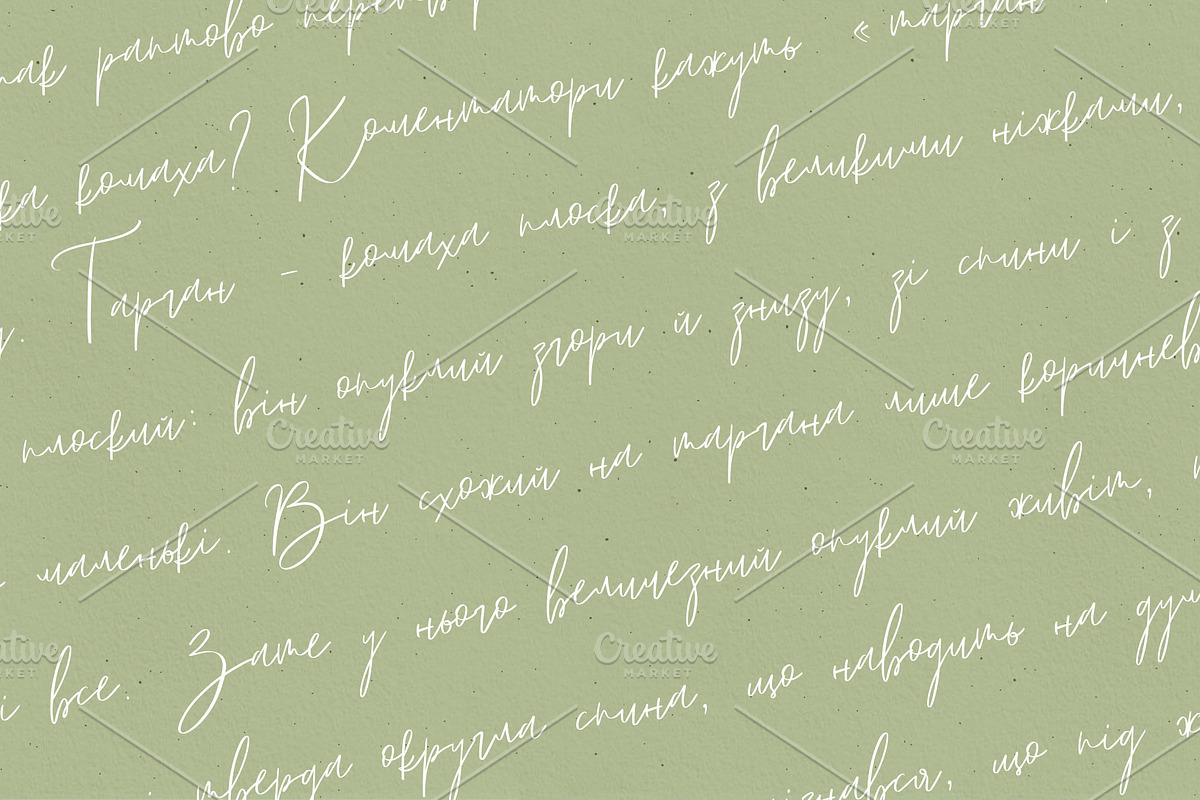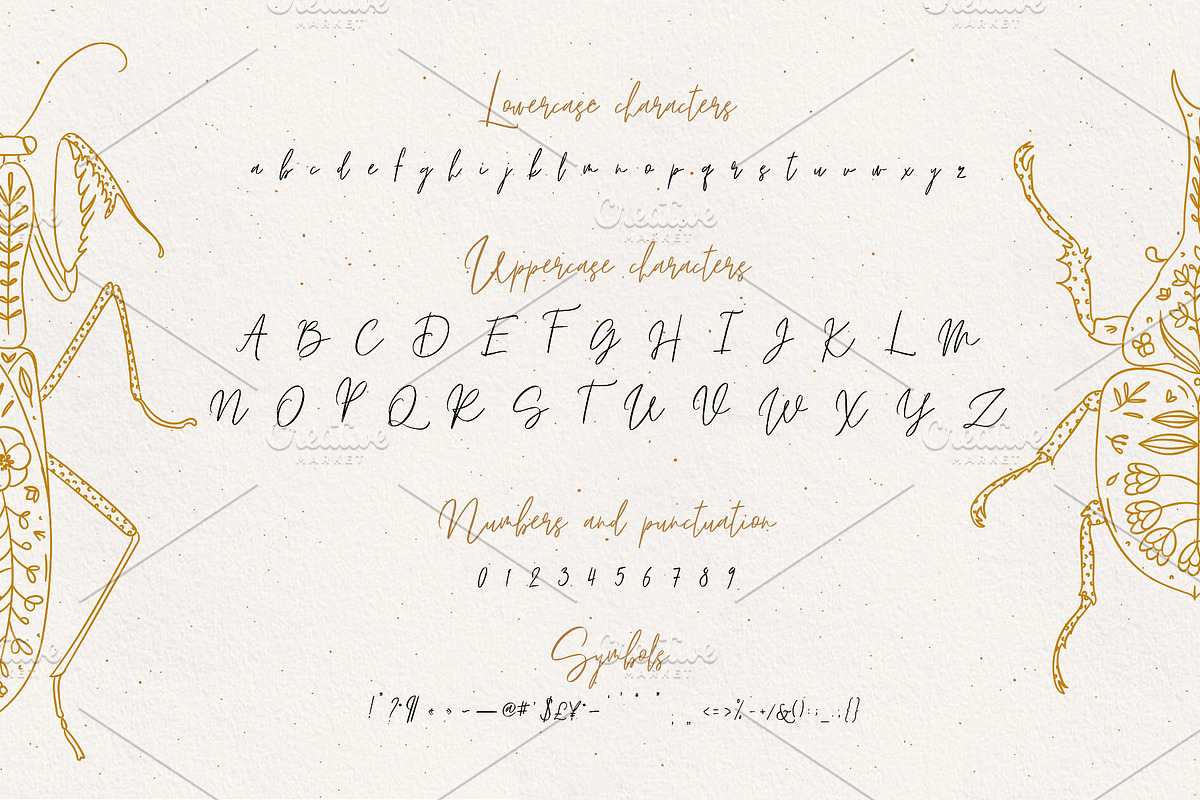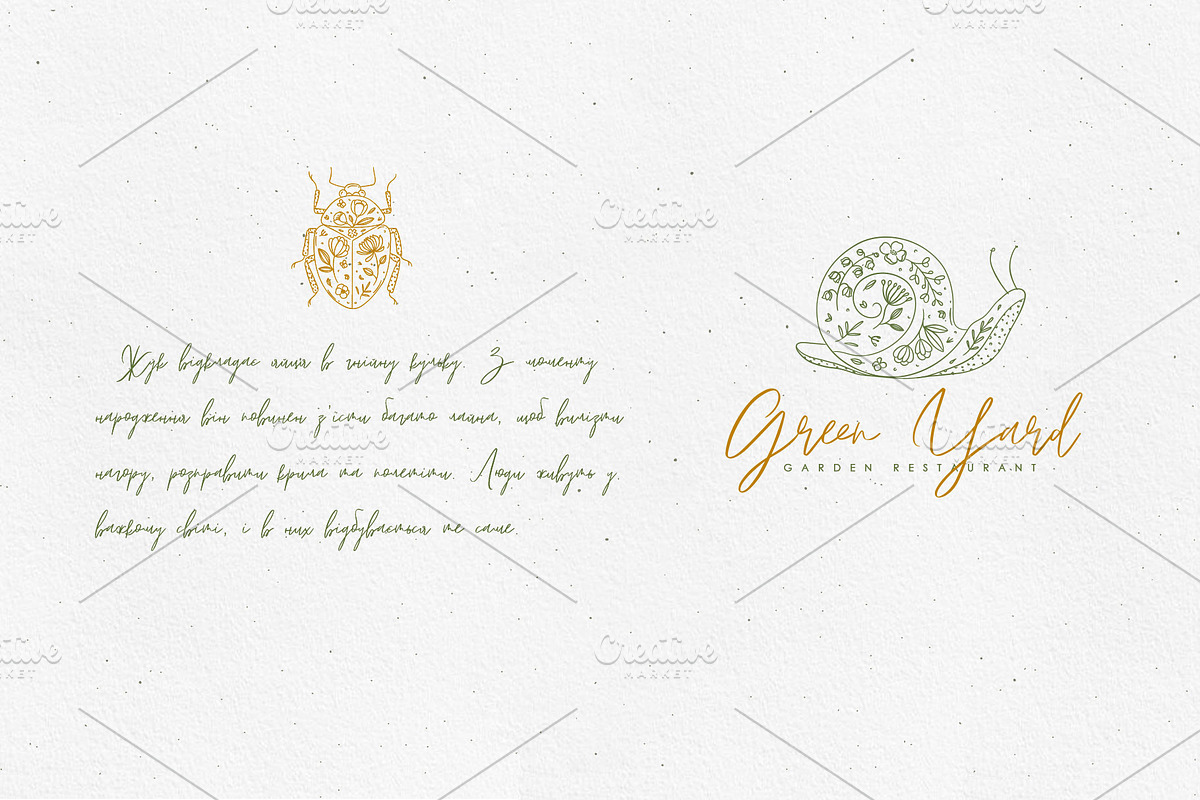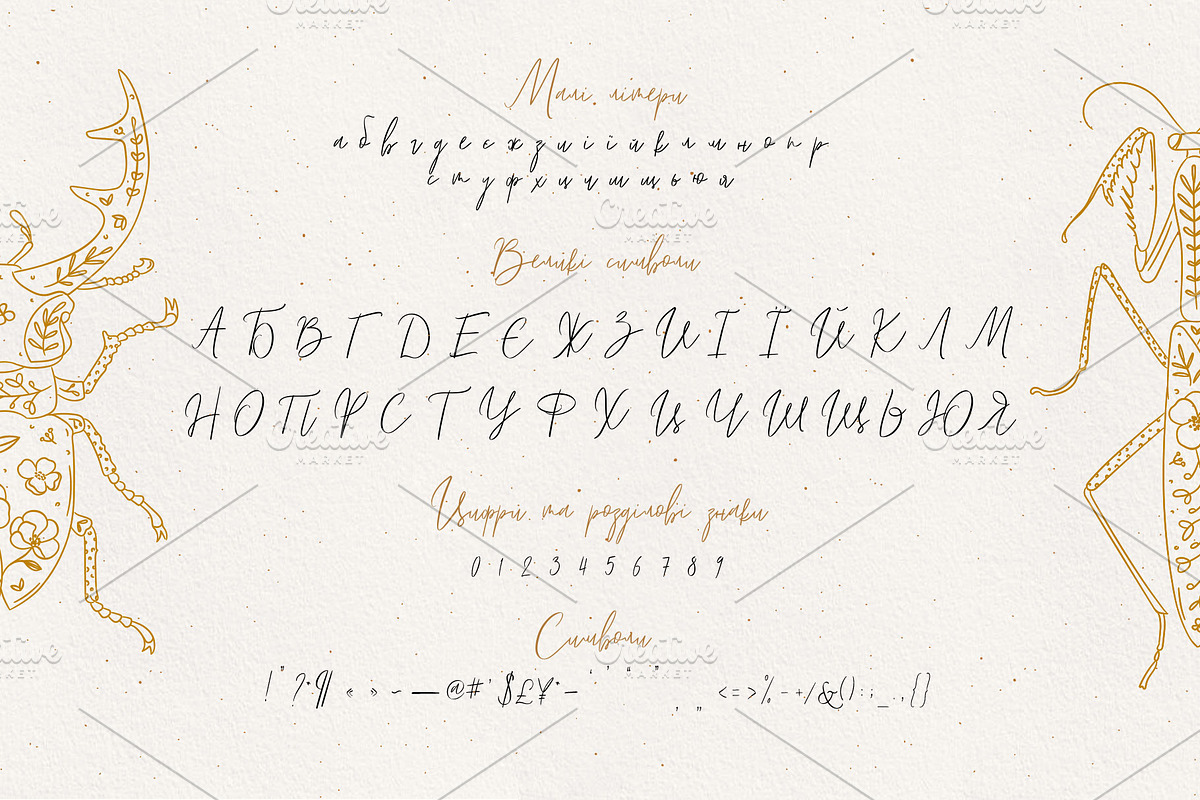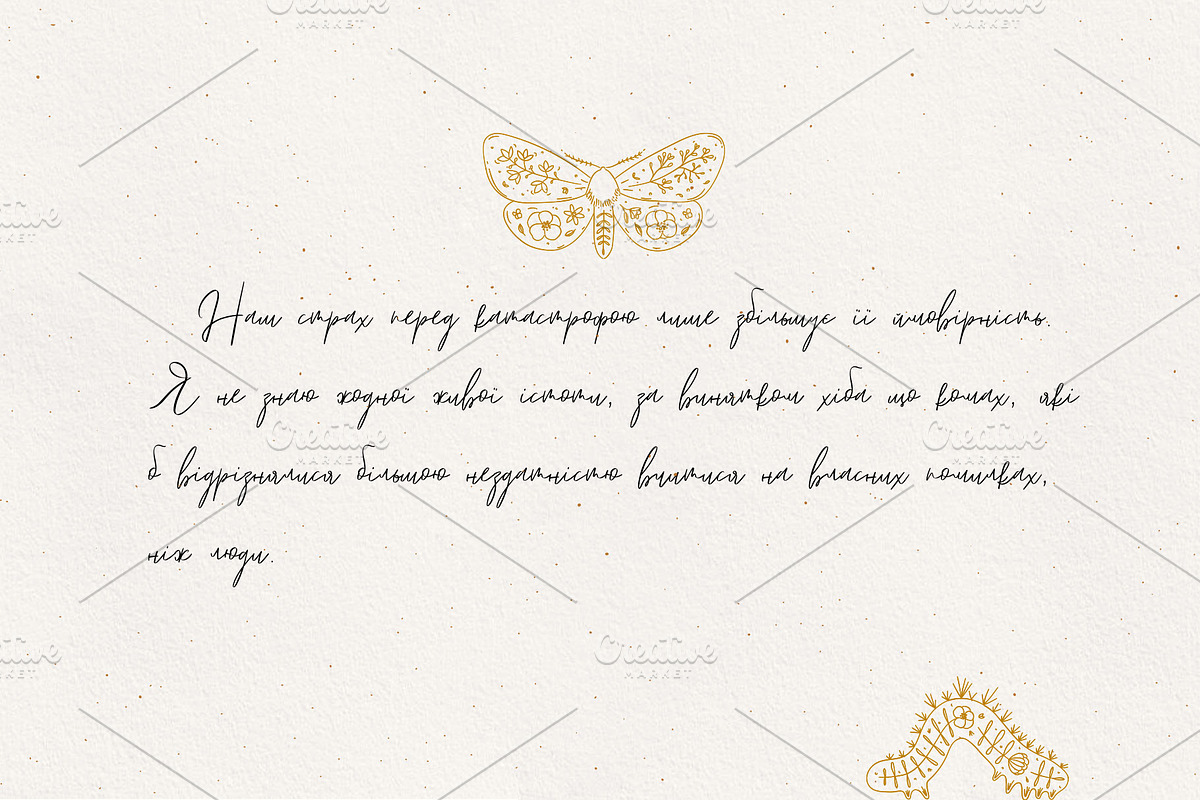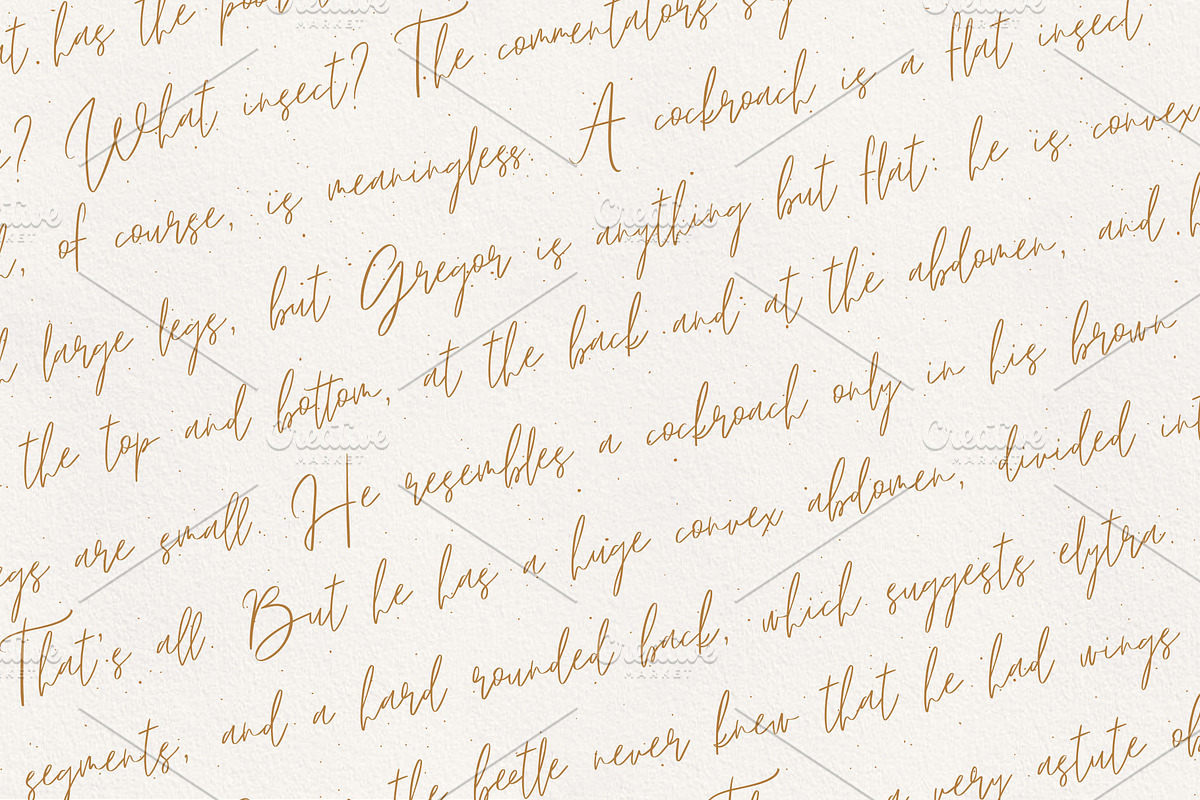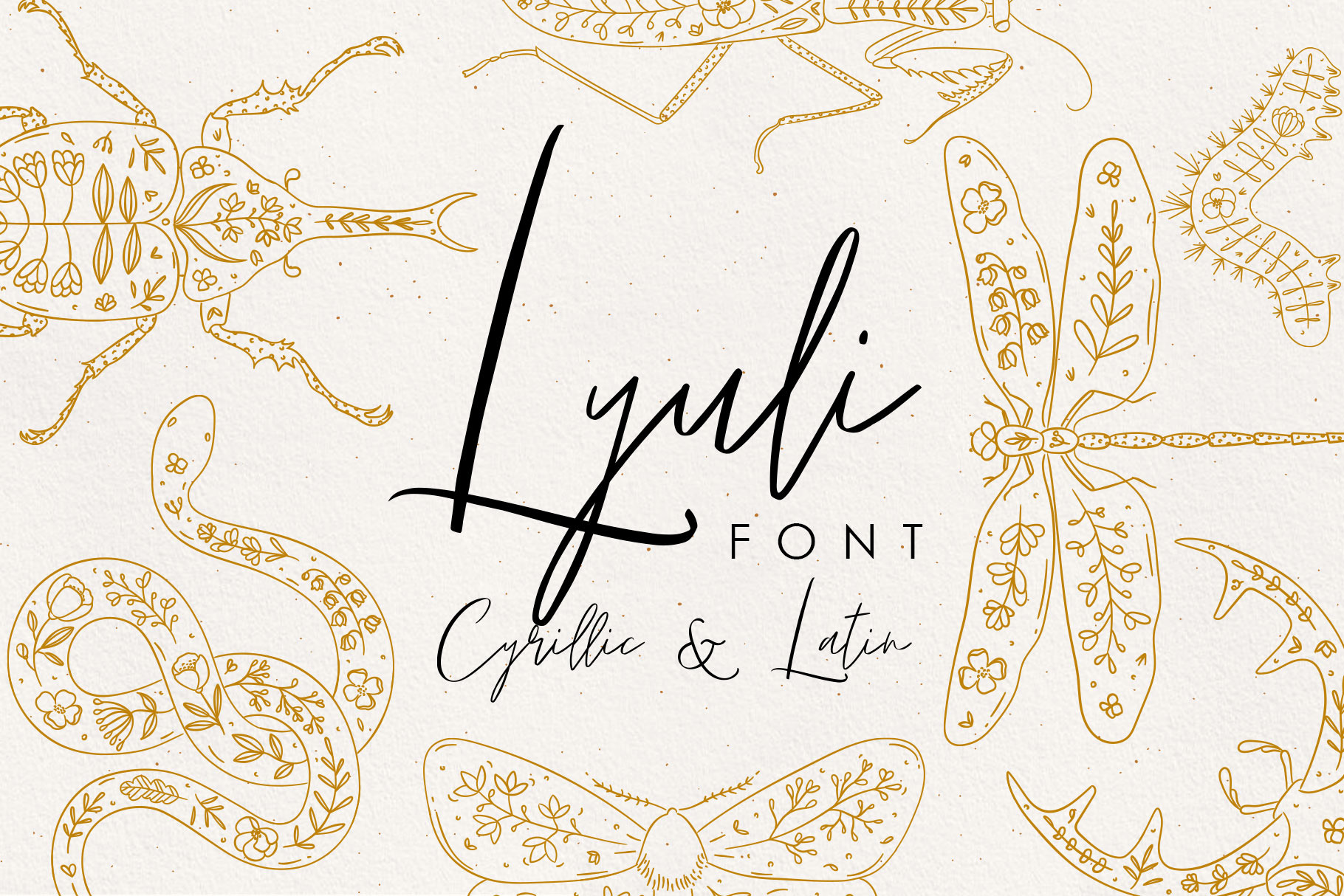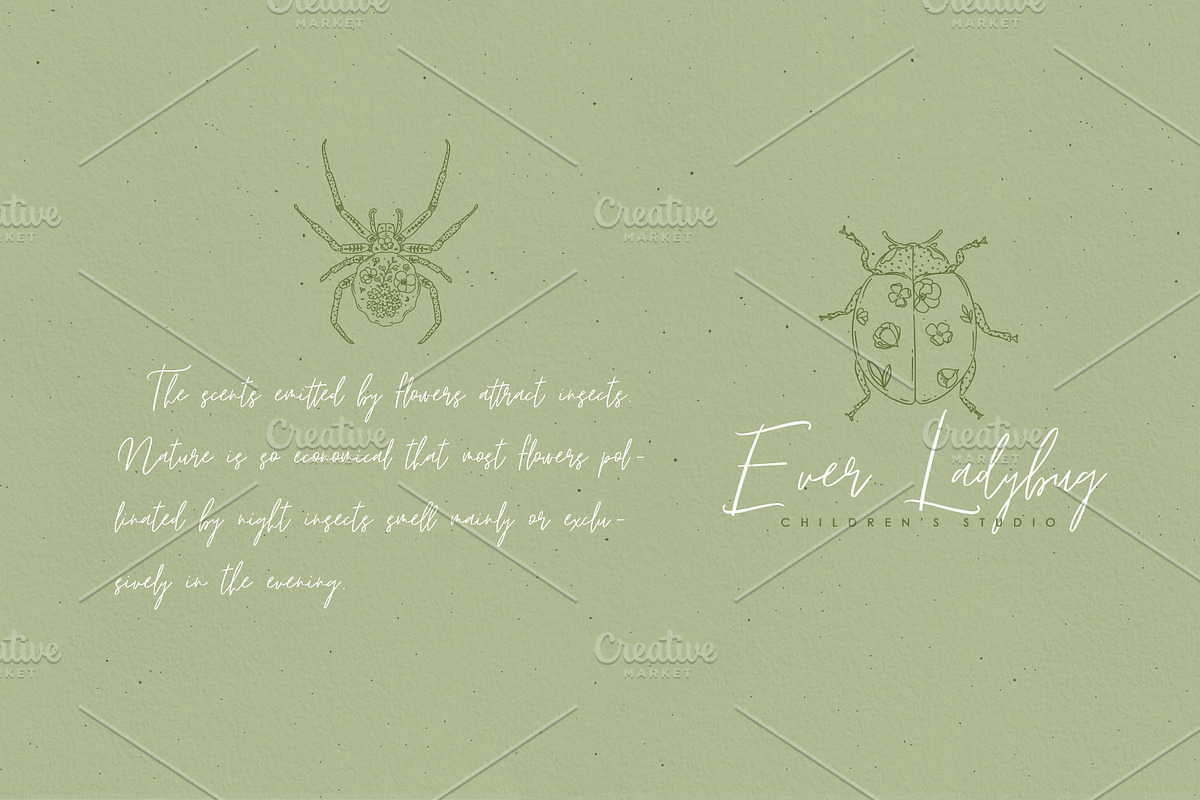
Lyuli Font Script
Lyuli is a handwritten cyrillic and latin font script with a calligraphy flair, ideal for creating handwritten-style logos, wedding stationery, photographer watermarks logos, modern websites, and more.
Type the words and Add the unique shapes from Lyuli font to get a more stunning display.